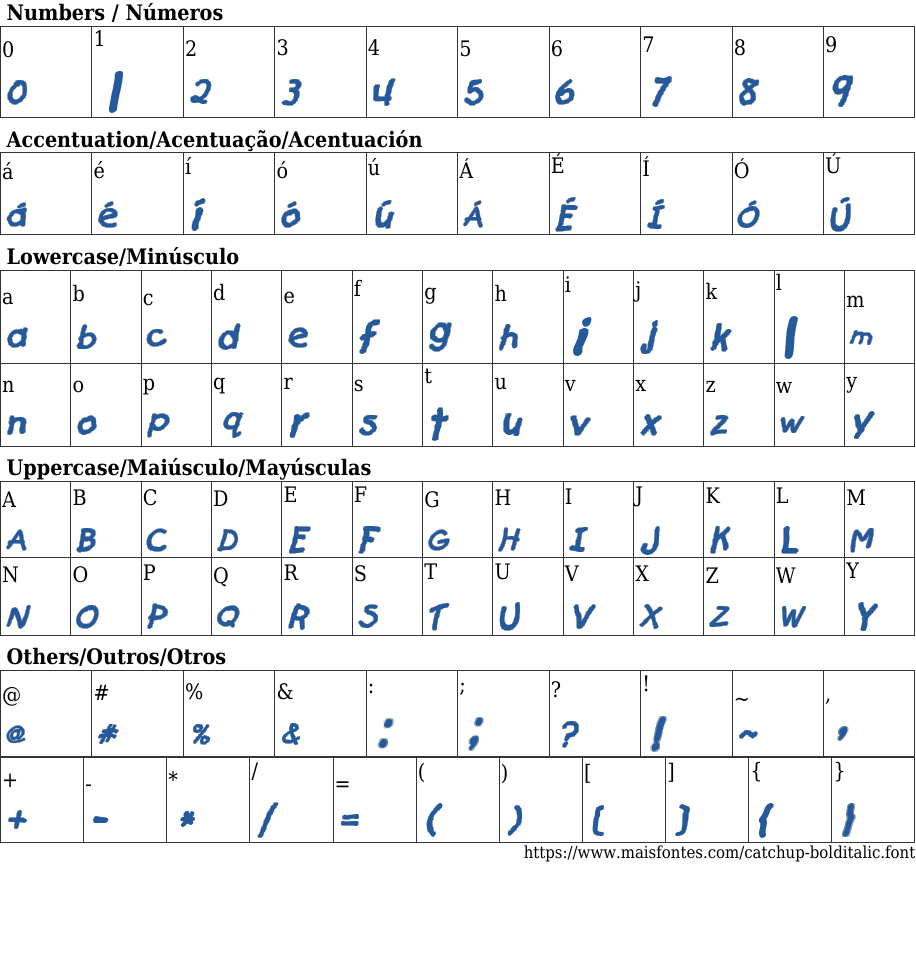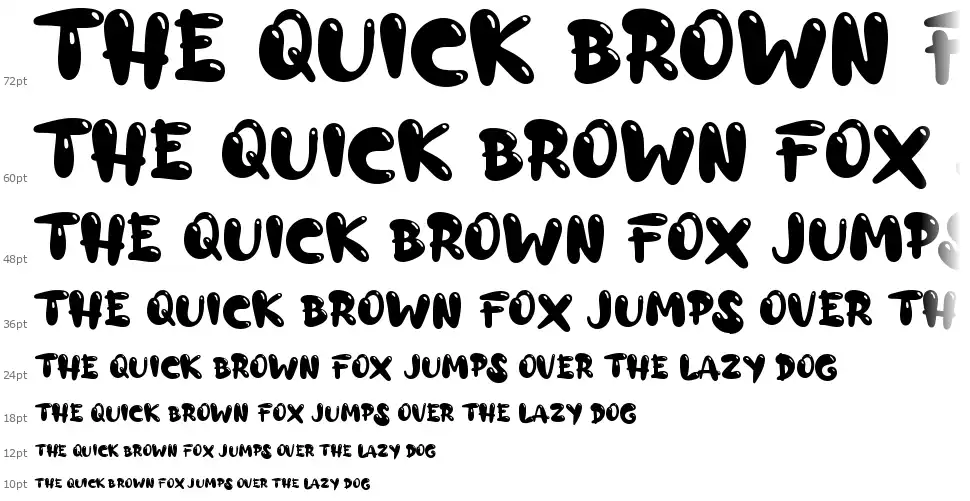
Catchup Font Free . Its flowing, organic lines and gentle curves give. Catch up is a handwritten font that exudes a casual, friendly, and inviting aesthetic. Catchup normal is the perfect font for all your fun designs. Catchup bold font free download. The font family is catchup. The font subfamily is normal. Download 186,286 free fonts at ufonts.com. See how to download catchup bold for free! A great choice for highlighting your design elements. Download catchup normal font free! Fontsplace is the best place to download catchup bold for free. Download free and premium fonts. Download catchup normal font free!
Download catchup normal font free! A great choice for highlighting your design elements. Its flowing, organic lines and gentle curves give. Download 186,286 free fonts at ufonts.com. See how to download catchup bold for free! Download catchup normal font free! Fontsplace is the best place to download catchup bold for free. The font family is catchup. The font subfamily is normal. Catch up is a handwritten font that exudes a casual, friendly, and inviting aesthetic.